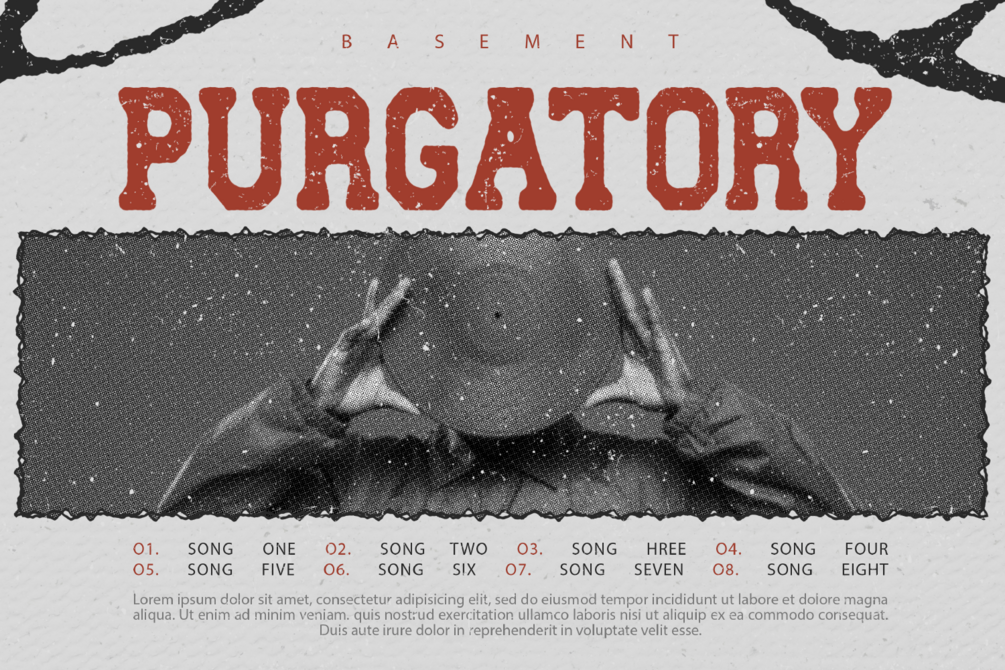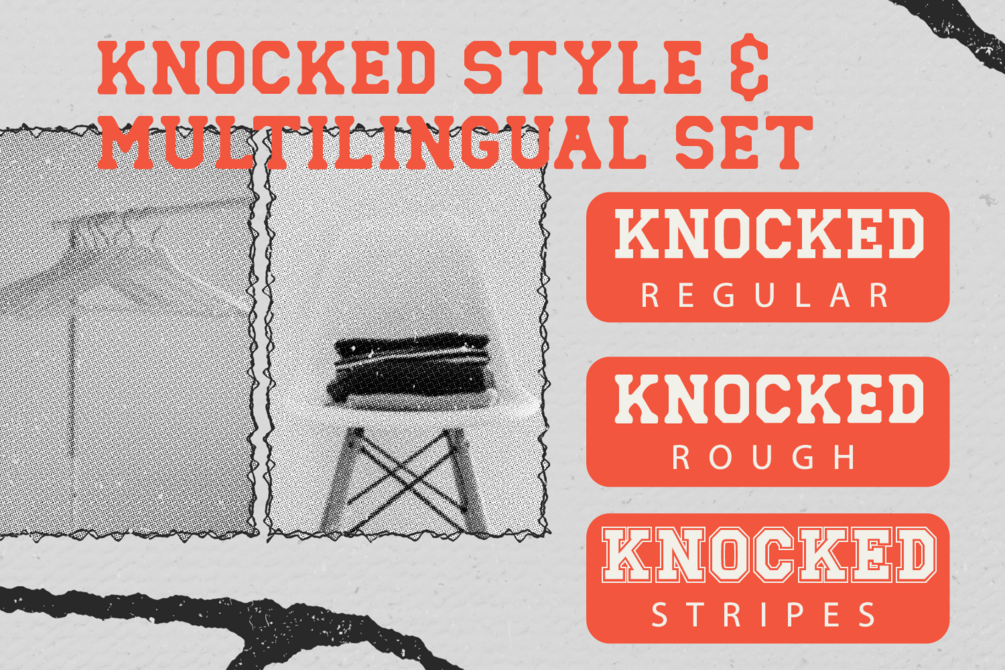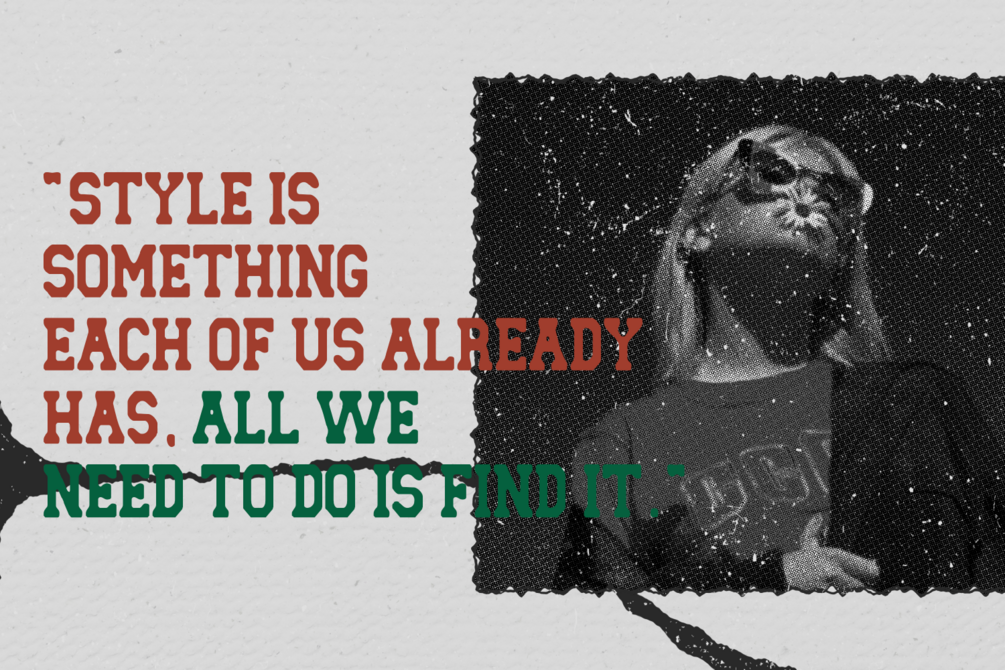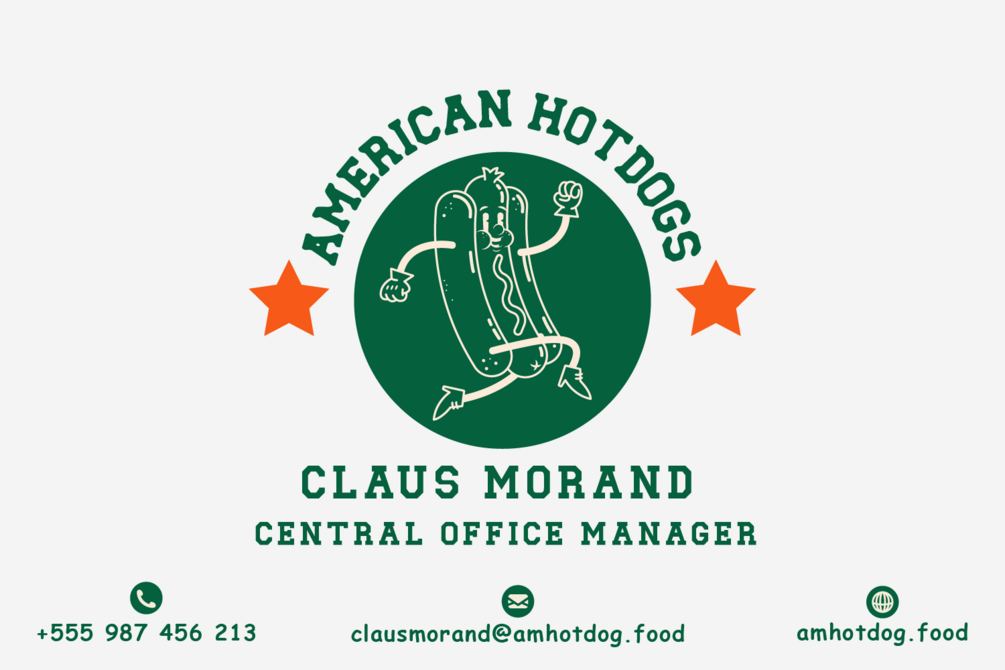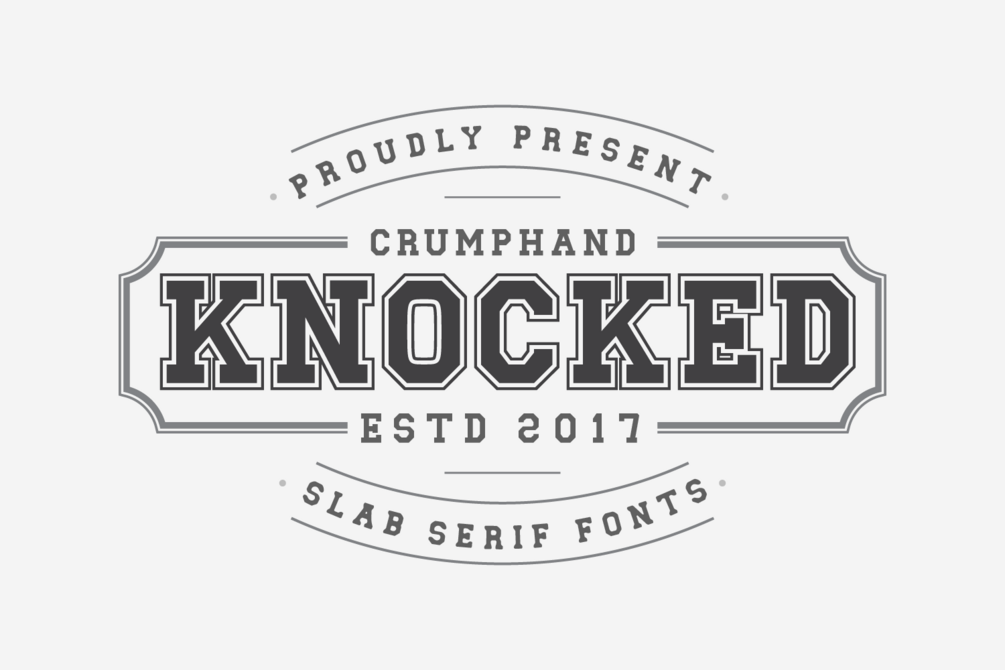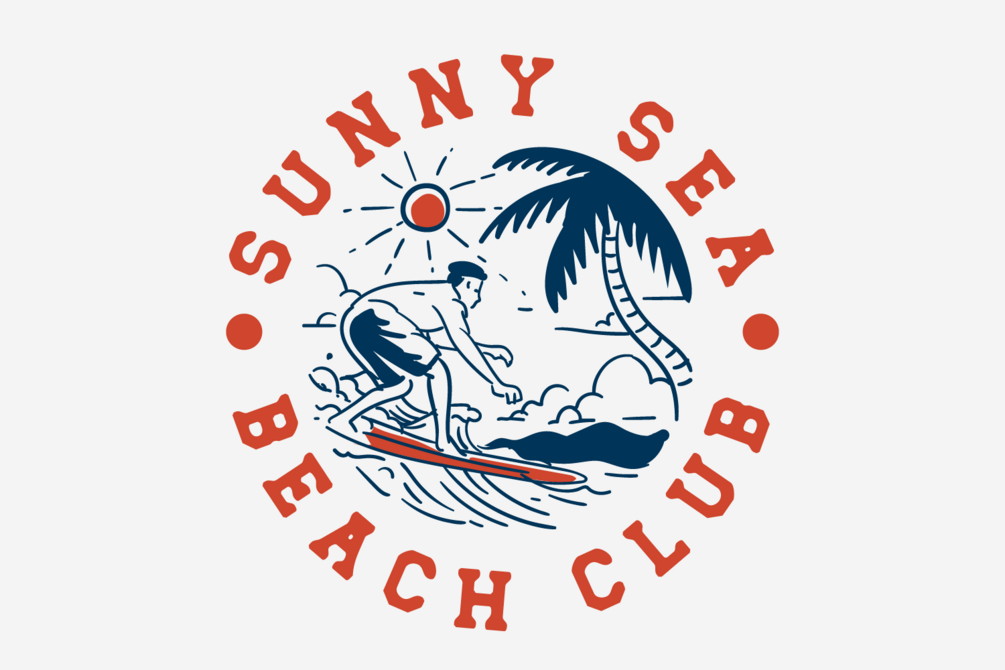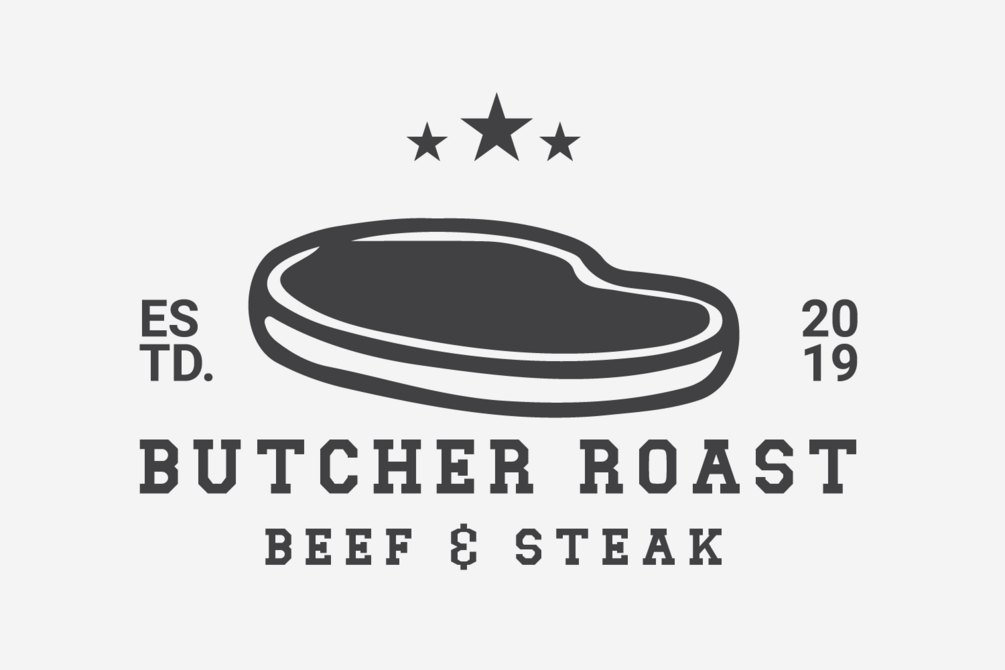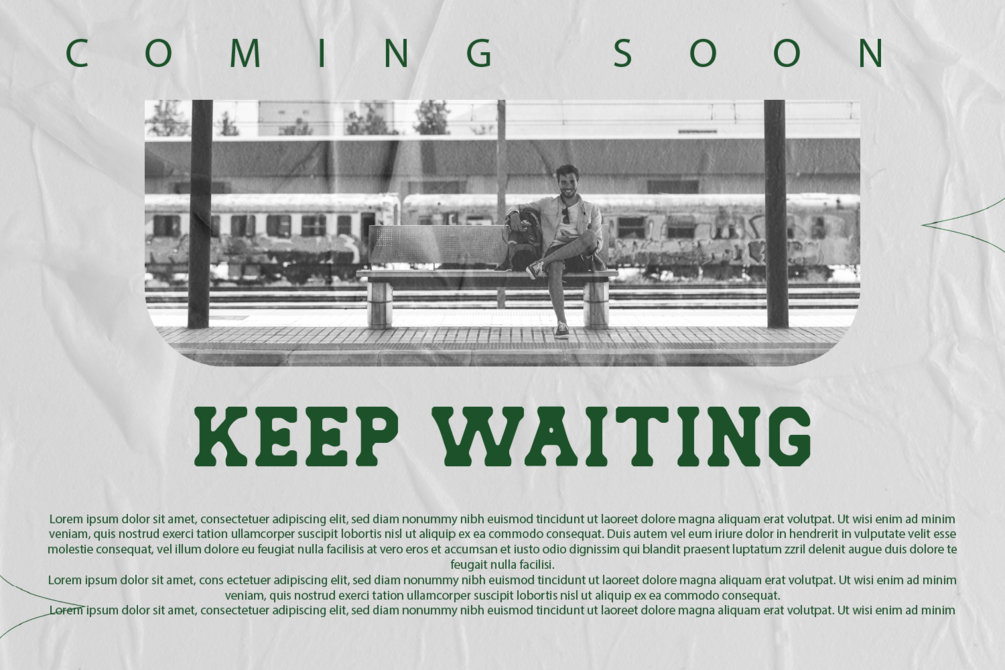
Knocked - Slab Serif Fonts
Introducing a new Slab Serif fonts "Knocked"
Knocked fonts is have a inspiration like Collage fonts, Varsity fonts, Athletic fonts and Retro fonts.
this Knocked fonts its pretty good and good for experience your design.
comes with 3 style, Regular, Rough and Stripes.
• Uppercase
• Lowercase
• Numerals
• Symbols
• European Multilingual